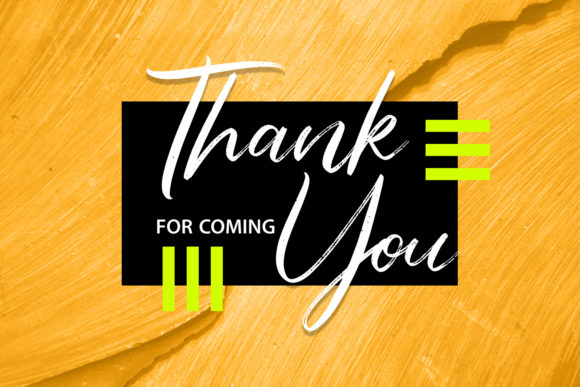
Introduction to Rockath Font
As a designer, there’s nothing quite like the feeling of bringing a creative project to life. The moment when your idea takes shape, and you see it come together in a way that truly reflects your vision. For many of us, that moment is made possible by the right tools – and the right fonts are always at the top of that list.
That’s where Rockath Font comes in – a stunning, handwritten font that adds a touch of elegance and sophistication to any design. Whether you’re creating wedding invitations, thank you cards, or business cards, Rockath Font is the perfect choice for adding a personal, handwritten touch to your work.
Key Features of Rockath Font
- High-quality design resource ideal for creative projects, including logos, branding materials, and graphics.
- Unique, bold, and modern design aesthetic that sets it apart from other fonts in the market.
Honest Review: Rockath Font
As a designer, I’m always on the lookout for high-quality design resources to elevate my creative projects. The Rockath Font is one such resource that caught my attention, and I’m excited to share my honest review with you.
- ✨ Unique and bold design: The Rockath Font has a distinctive look that’s perfect for making a statement in your designs.
- ⚠️ Limited character set: The Rockath Font only includes a limited set of characters, which may not be suitable for complex designs.
- ⚠️ Not ideal for small text: The font’s bold design may not be the best choice for small text, as it can be difficult to read.
Overall, I’m impressed with the Rockath Font’s unique design and transparent background. While it may have some limitations, it’s a great resource for designers looking to add some flair to their creative projects. With a little creativity, the Rockath Font can be a valuable addition to your design arsenal.
The Rockath Font is a high-quality design resource perfect for any creative project. Its unique style and versatility make it a valuable addition to any design collection.
The Rockath Font comes with a transparent background, making it ideal for use on any color background. To get the most out of it, experiment with different font sizes and colors to achieve the desired effect.
The Rockath Font is suitable for a variety of projects, including logos, social media graphics, and print materials. Its unique style makes it a great choice for creative projects that require a touch of elegance and sophistication.